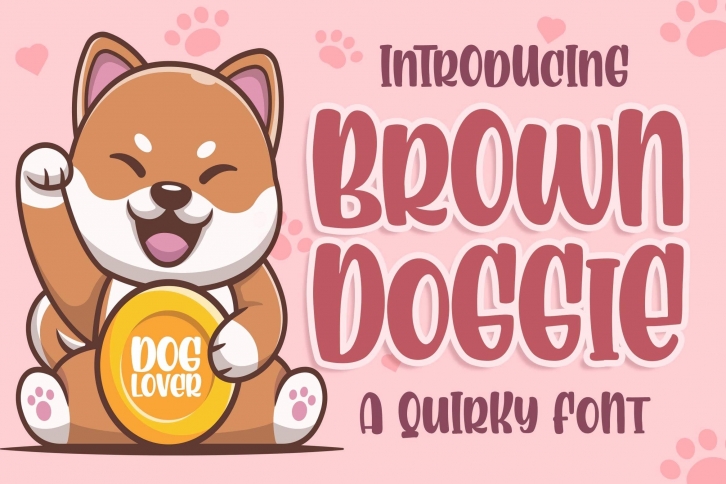
Brown Doggie is a playful and quirky display font. It embodies playfulness and authenticity and is the perfect choice for any children activity or school project.